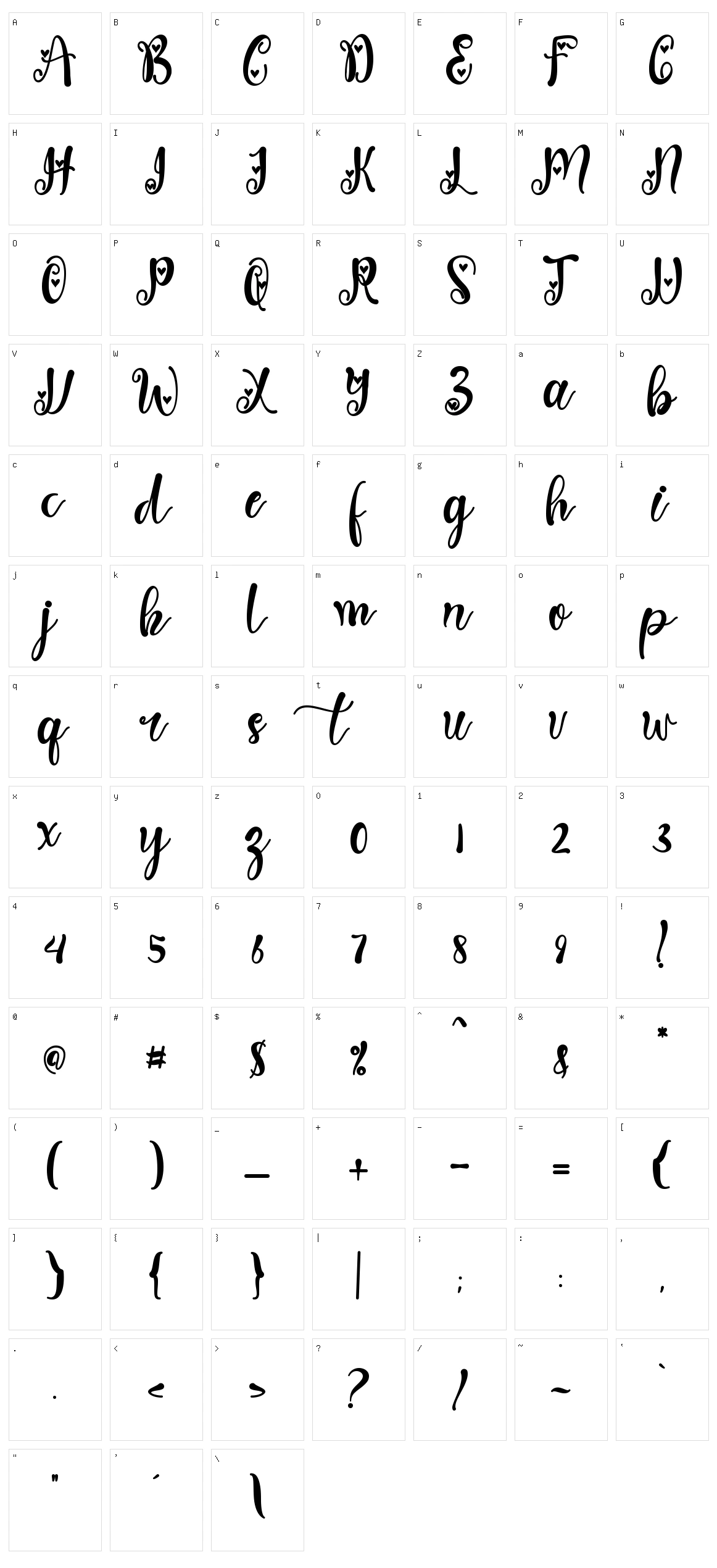
The free font Spring Heart is carefully designed by Yoga Letter, showcasing a thoughtful balance of creativity and usability and falls under the Valentine font style. When you download the ZIP file, it contains only 251.07 KB of font files, making it lightweight and quick to download. Please review the license details below to understand permitted usage and distribution rights. If license information is not available, we recommend using this font for personal projects only or contacting the author directly for commercial usage permissions.